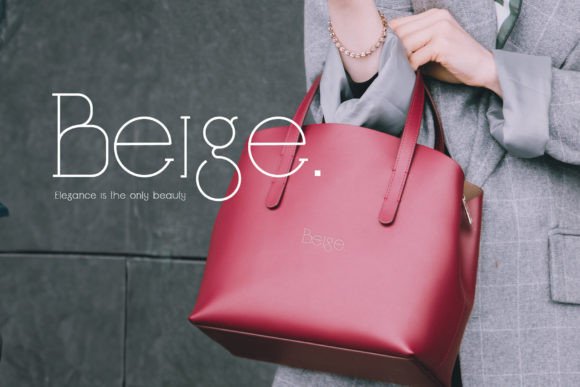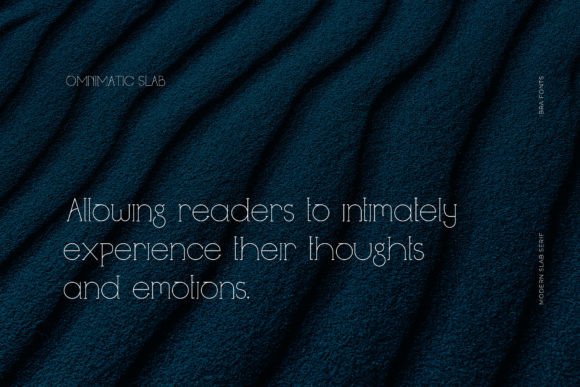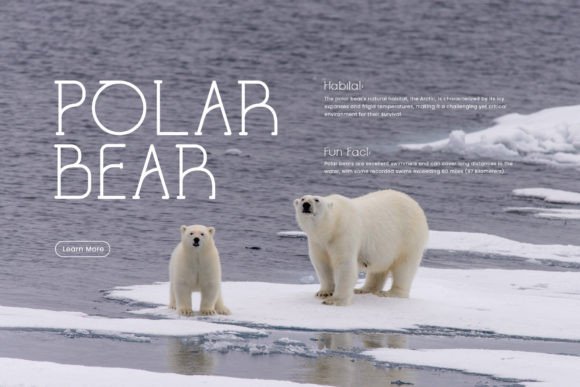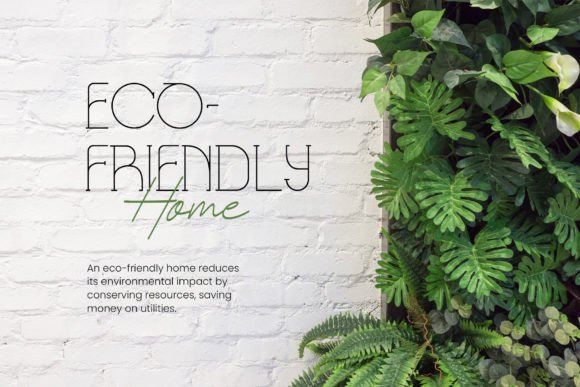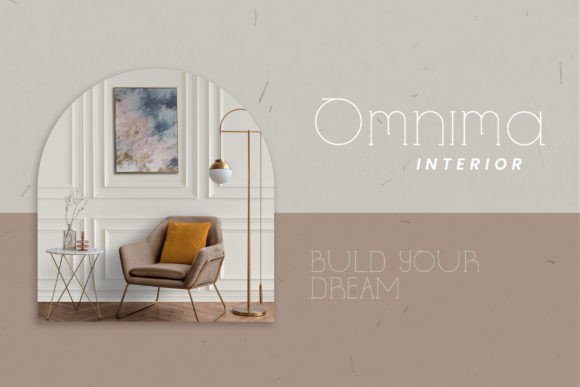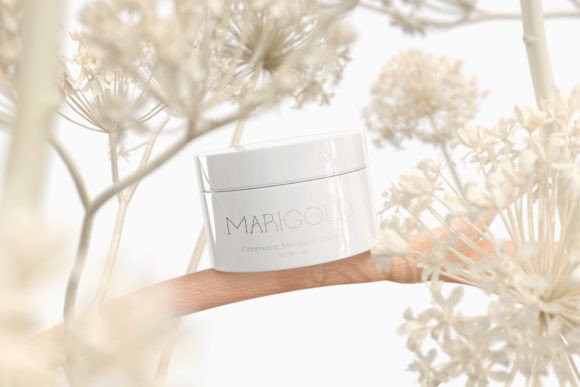
Introduction to Omnimatic Font
Omnimatic is a sleek and modern slim slab serif font that effortlessly combines elements of sophistication and readability.
With its slender letterforms and distinctive serifs, this typeface exudes a sense of contemporary elegance, making it a versatile choice for various design applications Omnimatic strikes the perfect balance between minimalism and character, ensuring that it remains both aesthetically pleasing and highly legible, making it an excellent choice for projects that require a touch of refined style while maintaining readability.
Key Features of Omnimatic Font
Why Choose Omnimatic Font?
Omnimatic Font offers exceptional quality and versatility, making it a valuable addition to your design toolkit. Whether you’re creating for personal projects or commercial use, Omnimatic Font delivers professional results.